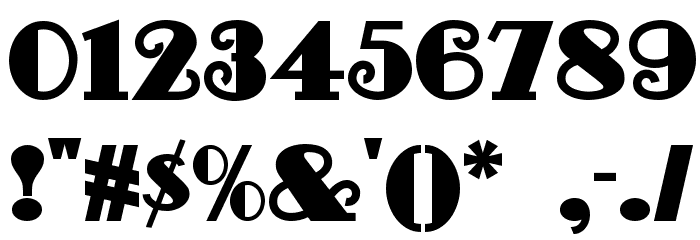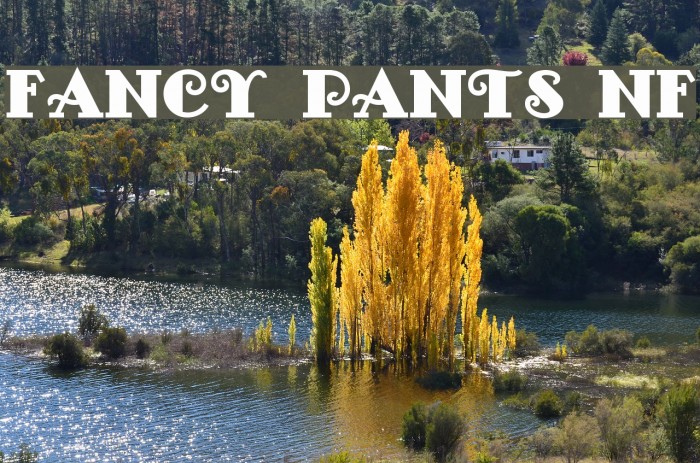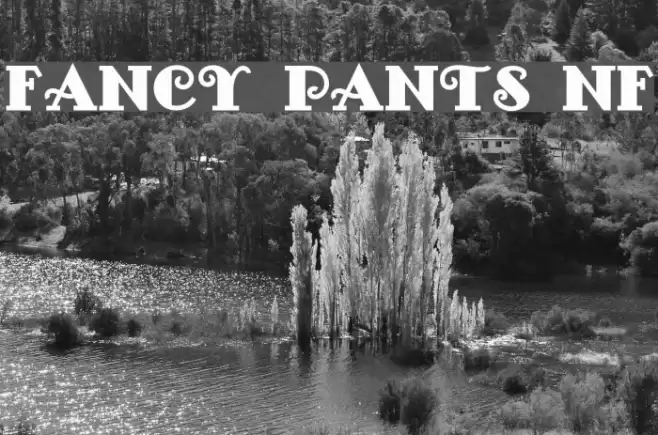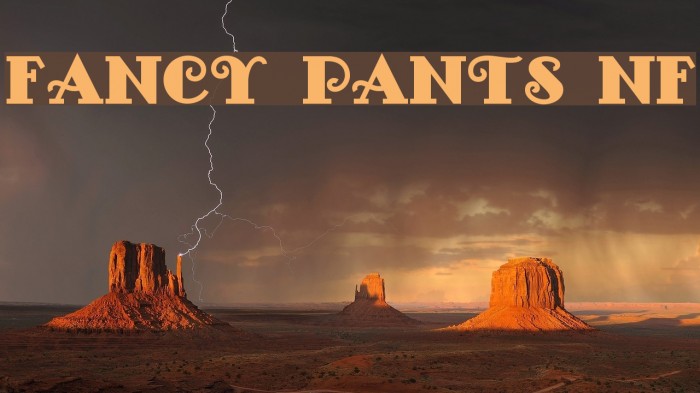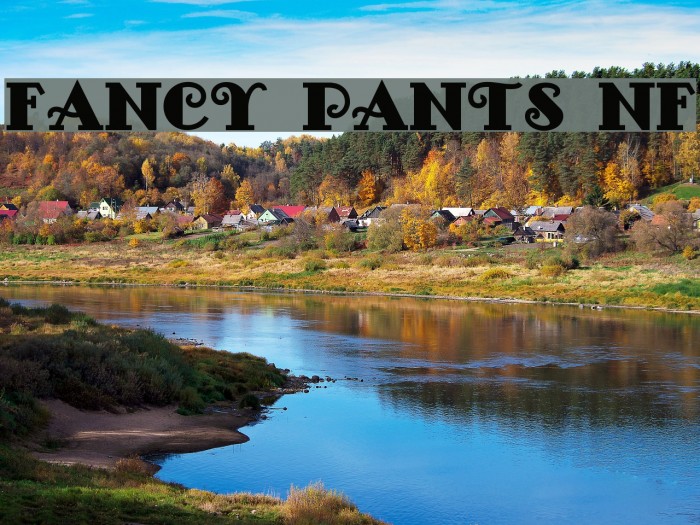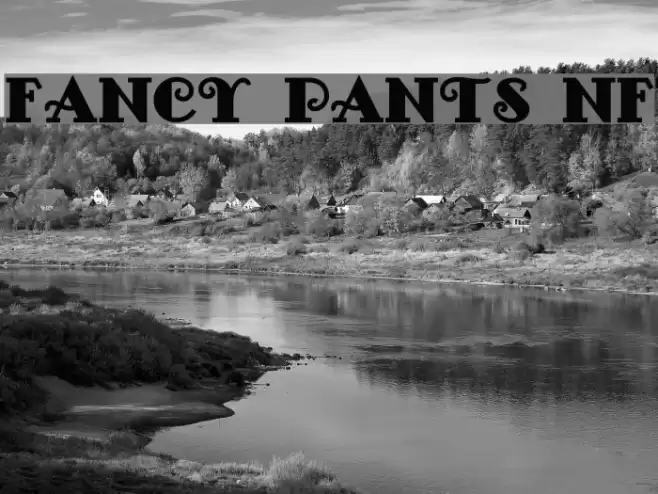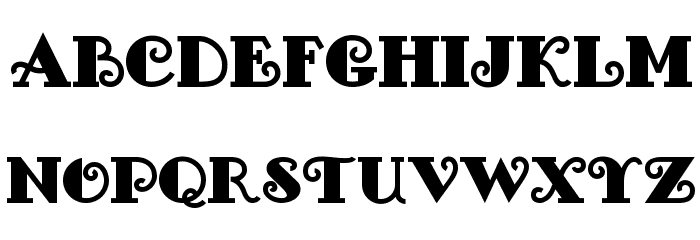
Fancy Pants NF Font
Fancy Pants NF Description
This font features a bold and decorative style with intricate swirls and flourishes that add a touch of elegance and whimsy. The uppercase letters are particularly ornate, with embellishments that make each character stand out. The lowercase letters maintain a similar decorative flair, ensuring consistency throughout the typeface. Numbers and special characters are also designed with the same attention to detail, making them suitable for creative and artistic projects. The overall appearance is both playful and sophisticated, making it a versatile choice for various design needs.
| Use Case | Headlines, Logos, Invitations |
| Proposed Projects | Ideal for invitations, posters, branding, and any project requiring a touch of elegance and creativity. |